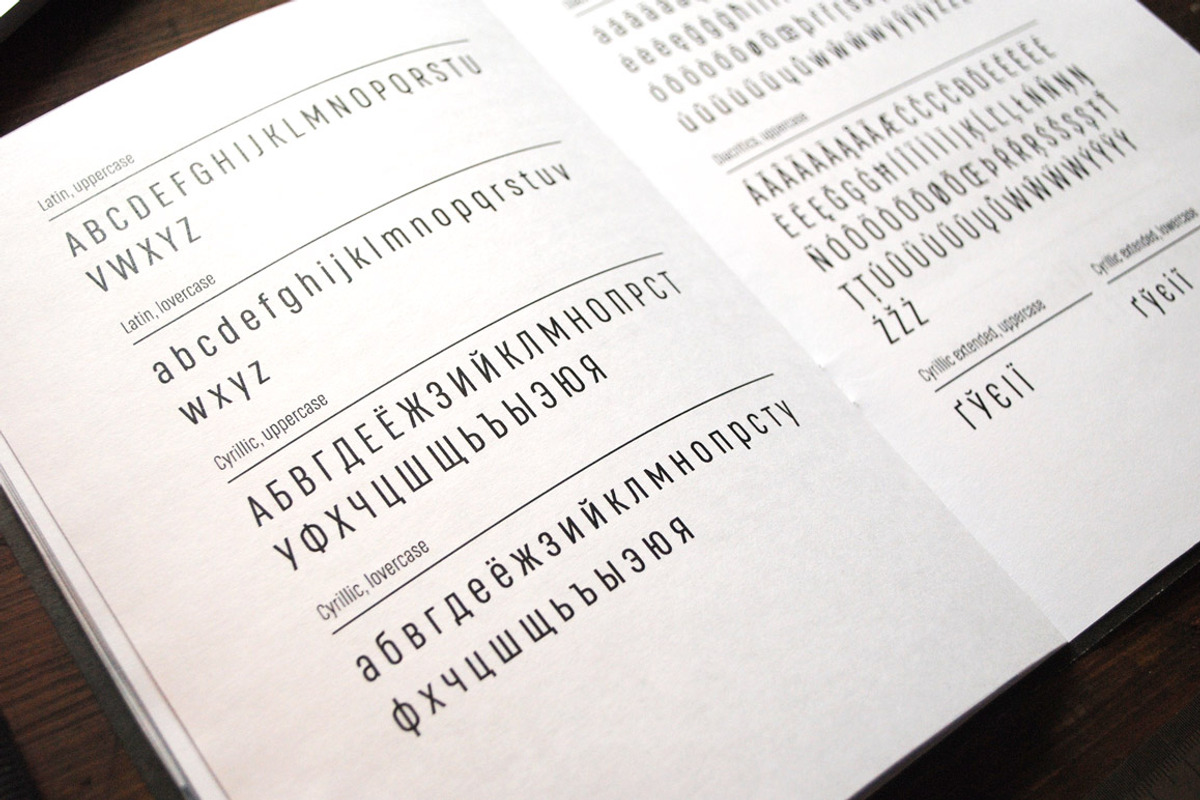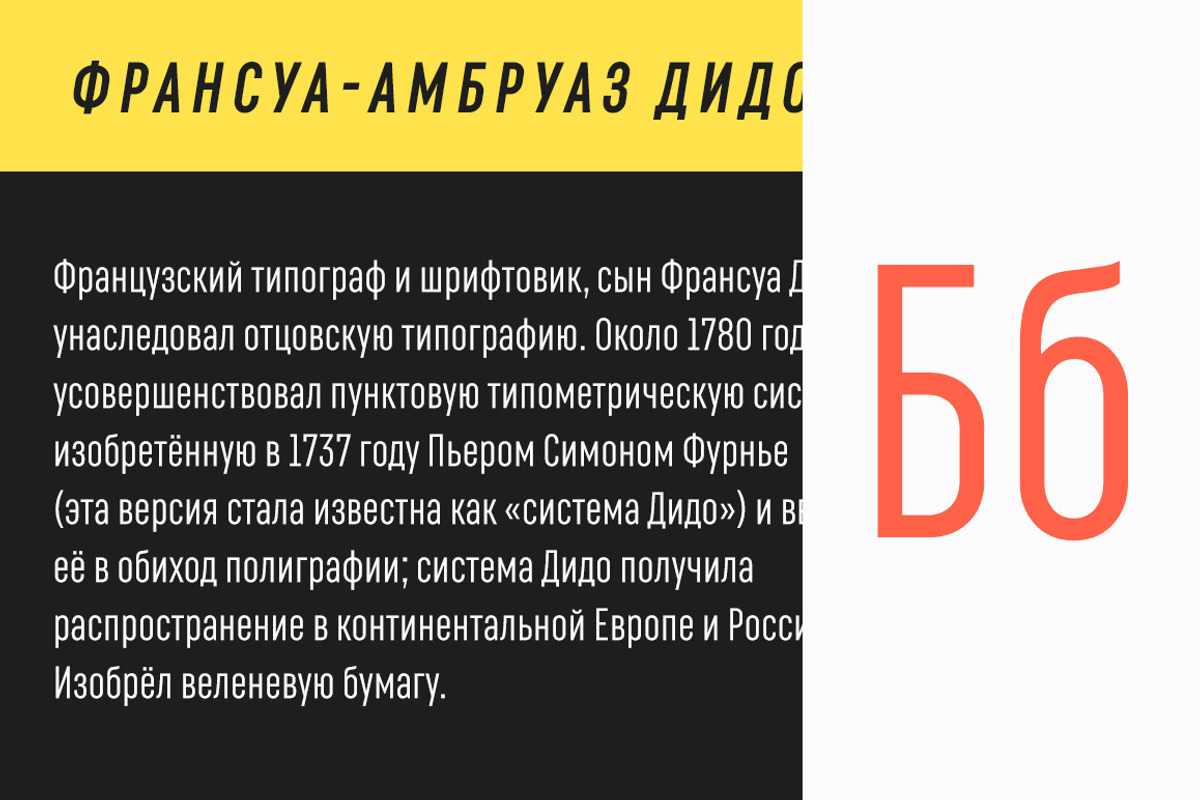
Rufo — condensed geometric sans serif with the closed forms. Contains 12 fonts. 6 regular and 6 italic. From thin to black. A rich palette gives full freedom for creativity and bright decisions.
Extensive area of use. The versatility of the sans serif typeface covers various aspects of graphic design. Web, printed materials, clothing, logos, posters, labels and much more.
Rufo is pragmatic typeface. Can save space and will accommodate a large amount of information in a limited space. The font was designed so that condensed letters remains readable even in small sizes.
Opentype: alternate numbers, oldstyle numbers, arrows, fractions and automatic fractions, case sensitive forms, superscript and subscript, numerators and denominators.
Support: cyrillic, cyrillic extended, latin, latin extended (Western European, Central European, South-East).
Type features
- Alternate numbers
- Oldstyle numbers
- Arrows
- Fractions
- Automatic fractions
- Case sensitive forms
- Superscript and subscript
- Numerators and denominators
- Cyrillic, cyrillic extended
- Latin, latin extended (Western European, Central European, South-East)